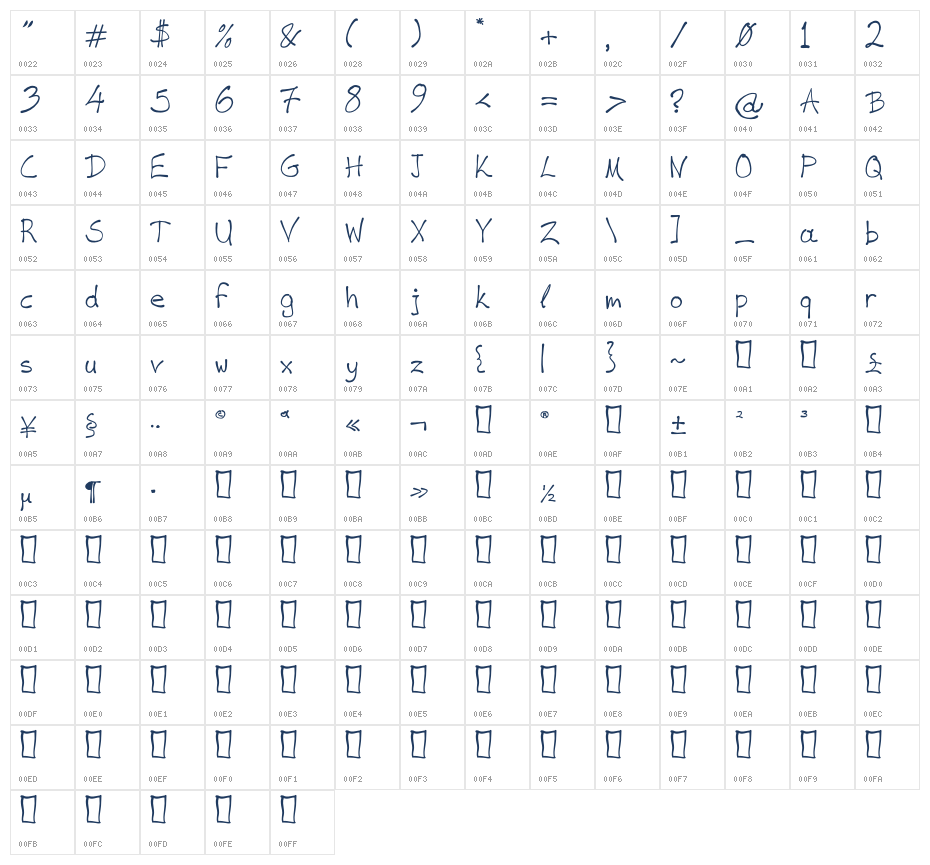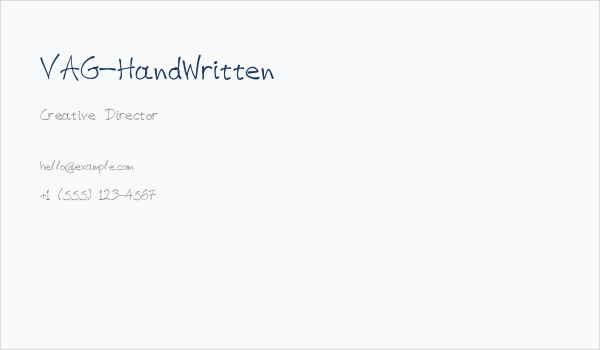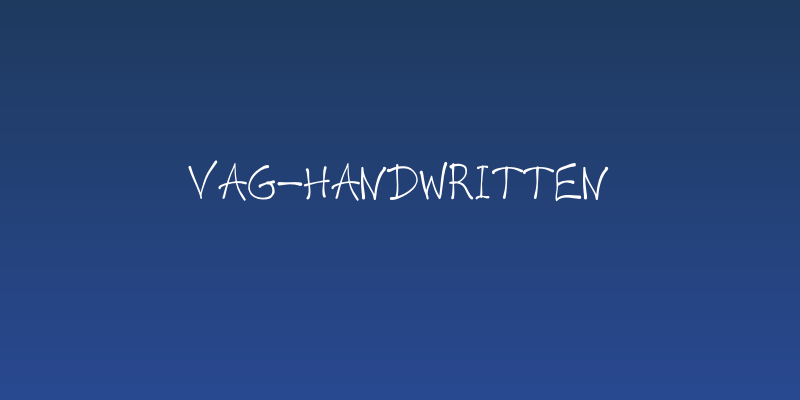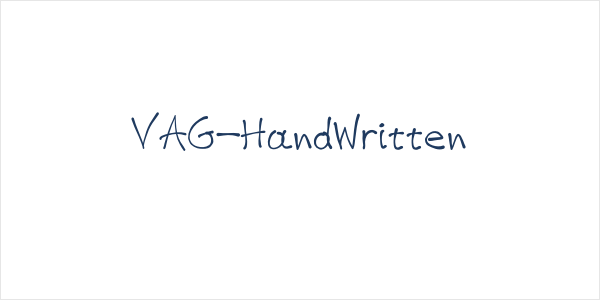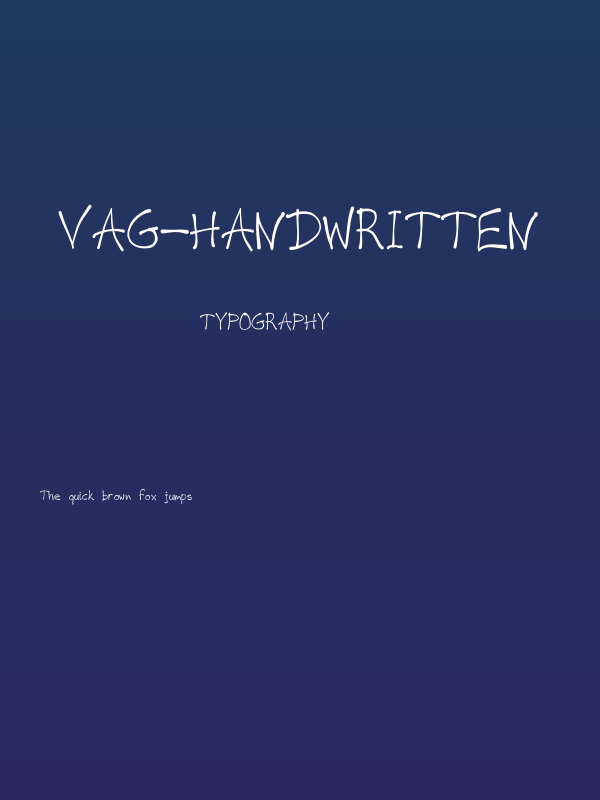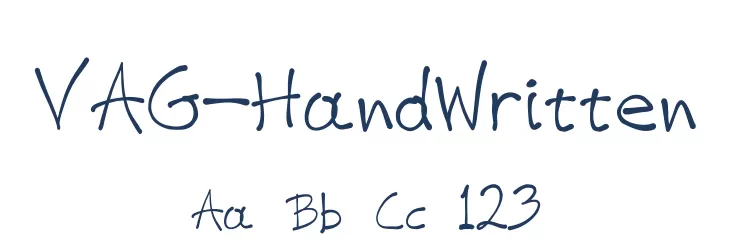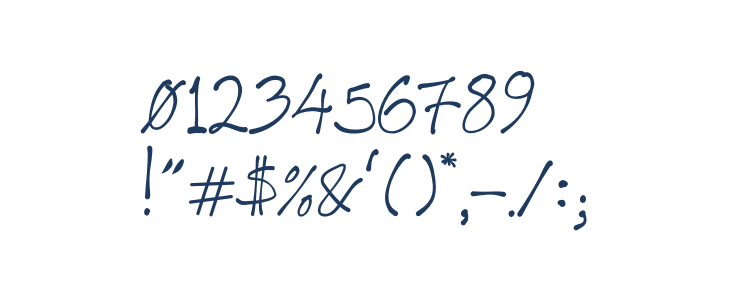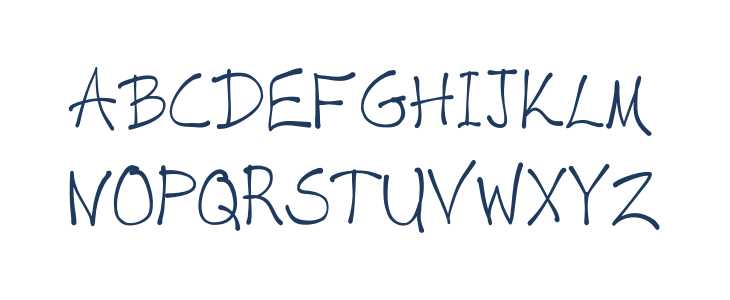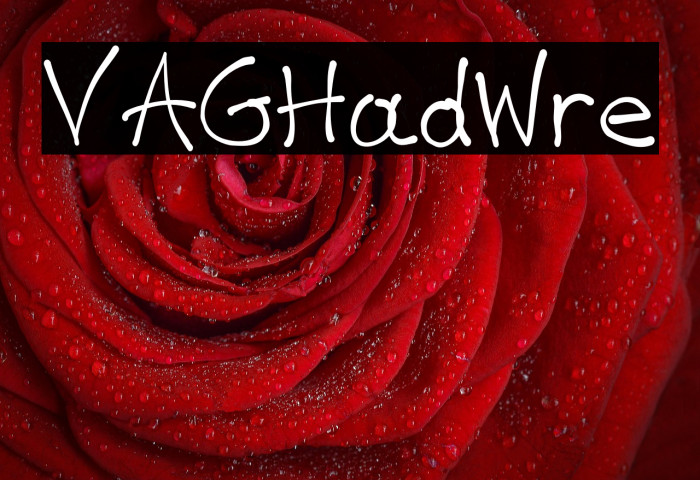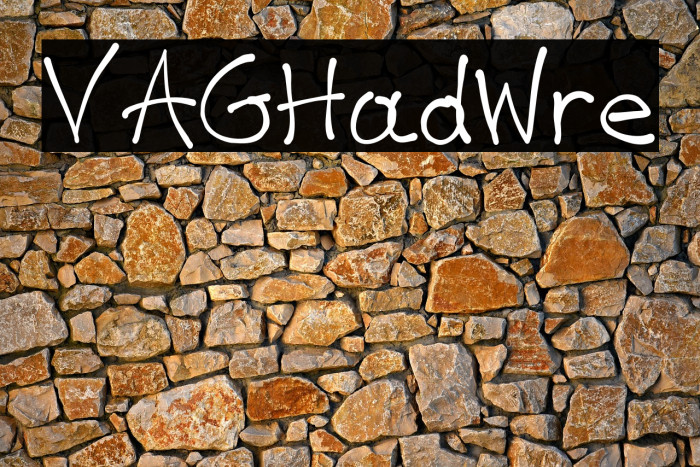
VAG-HandWritten Font
VAG-HandWritten Description
A casual, handwritten script font with a playful and informal style, featuring irregular strokes and a slightly whimsical appearance.
| Overall Style | Casual, Playful, Informal |
| Use Case | Headlines, Body text, Logos, Invitations, Creative projects |